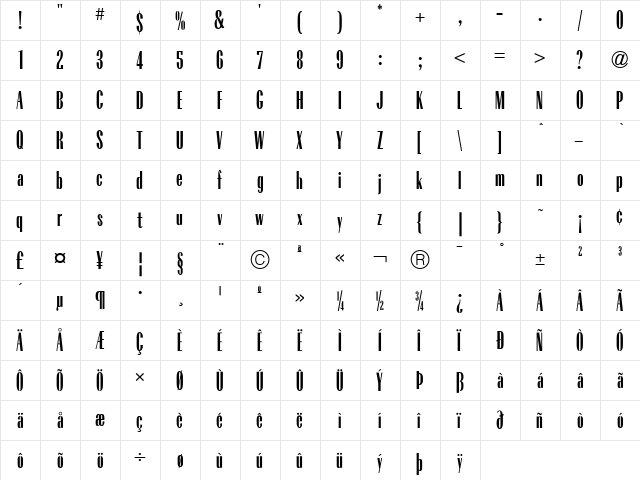
RadiantXCondICG Medium
Design Context for RadiantXCondICG Typeface
RadiantXCondICG takes a measured approach to typography — its balanced proportions and neutral character make it a reliable workhorse for both digital and print work. The condensed width makes it efficient for tight spaces without sacrificing legibility.